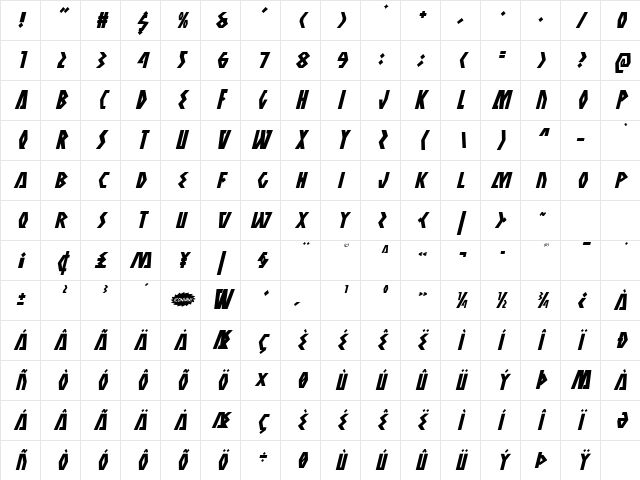
Antikythera is a composed and adaptable typeface that performs quietly and consistently across a wide range of design contexts. The slanted form adds forward momentum and visual energy.
Pro Tip: Use Antikythera for emphasis, pull quotes, and subheadings where its slanted energy can add rhythm to the layout.